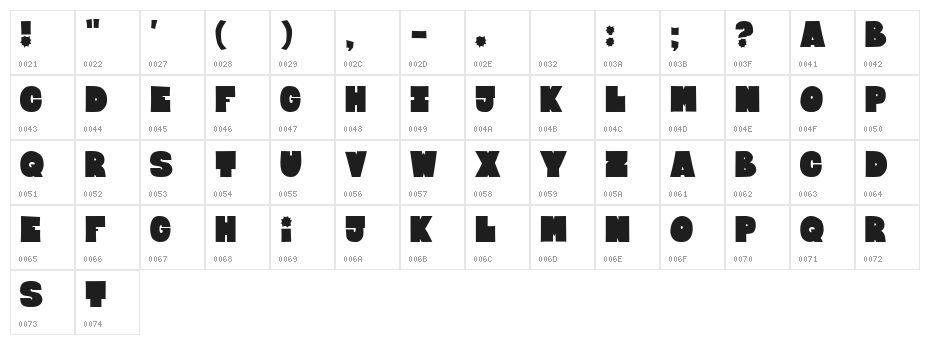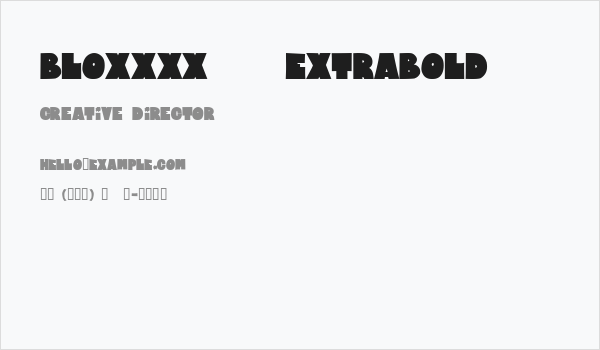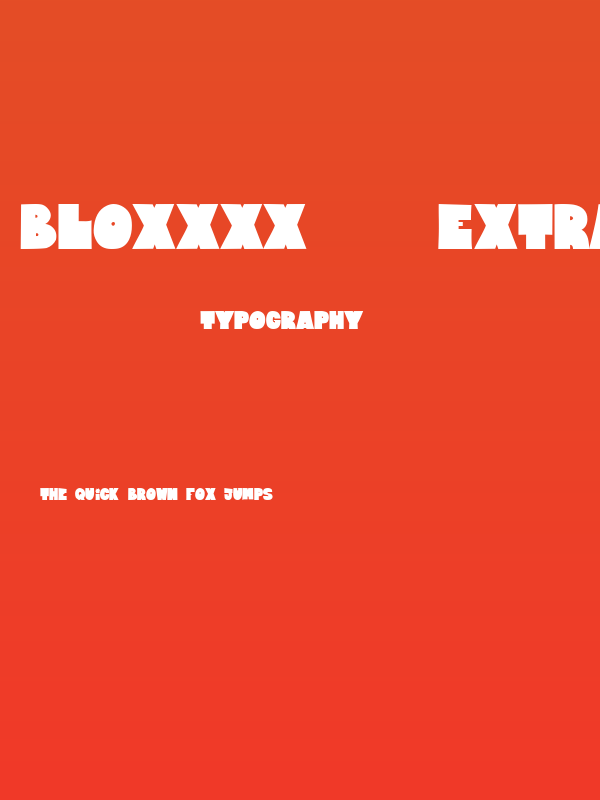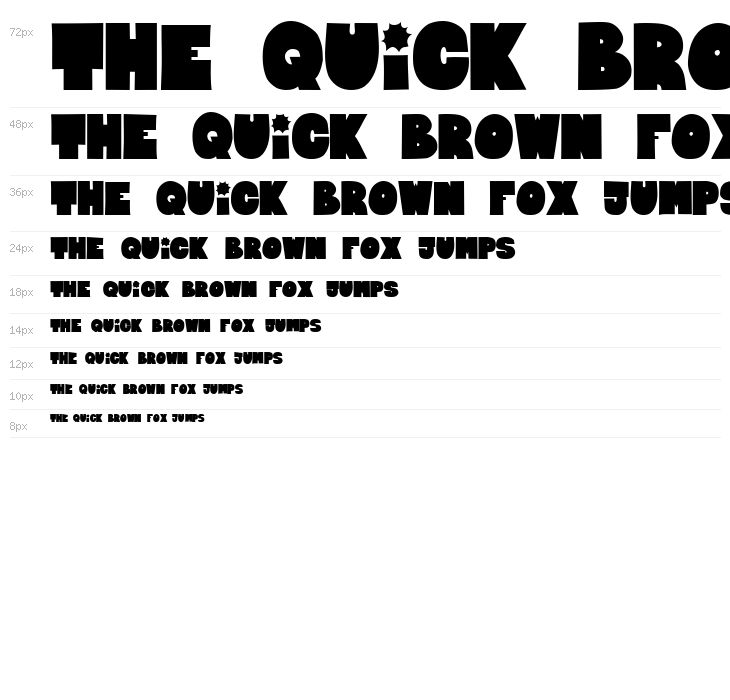
Bloxxxx ExtraBold Font
Bloxxxx ExtraBold Description
This font features a bold and blocky design with a strong presence. The characters are uniformly thick, giving it a robust and solid appearance. The uppercase letters are particularly striking, with a geometric style that emphasizes straight lines and sharp angles. The lowercase letters maintain the same boldness, ensuring consistency across the typeface. The numbers and special characters follow the same design principles, making them easily legible and visually impactful. This font is ideal for projects that require a strong visual statement.
Proposed ProjectsPerfect for posters, headlines, logos, and any design needing a bold statement.